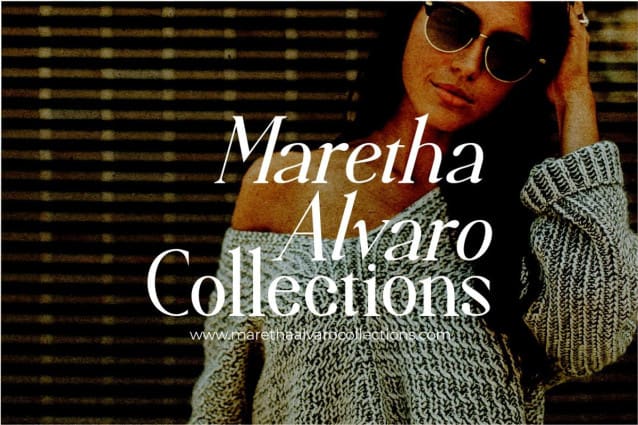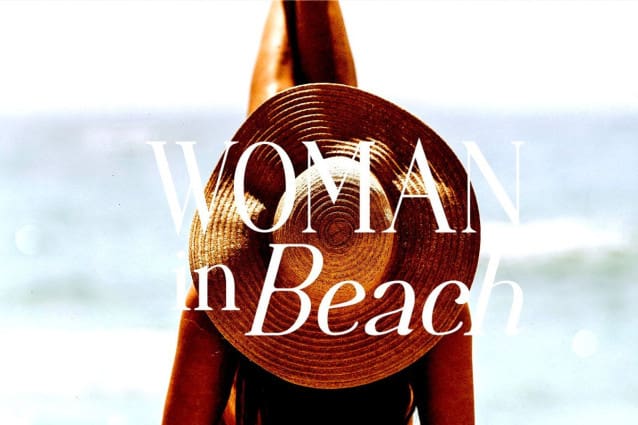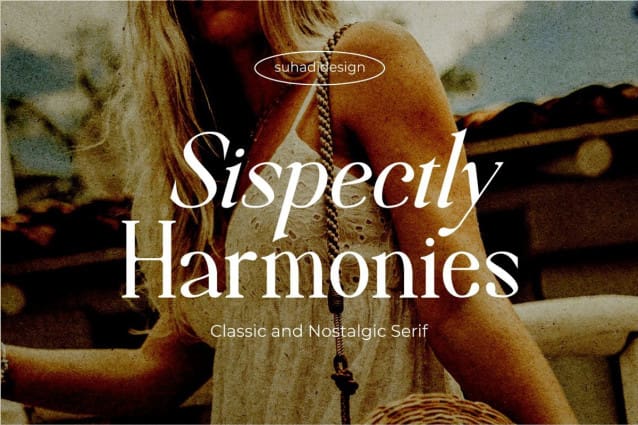
Sispectly Harmonies Font
Sispectly Harmonies Font is a classic nostalgic serif font. is here to become a market favorite. We made this font look elegant, classy, ​​easy to read, stylish, attractive and easy to use. Sispectly Harmonies Font is a great choice for retro designs, logos, magazines, classic, classy designs, newspapers, modern, books, brand names, branding, and other projects. The SispectlyHarmonies font is here to enhance the quality of your designs.